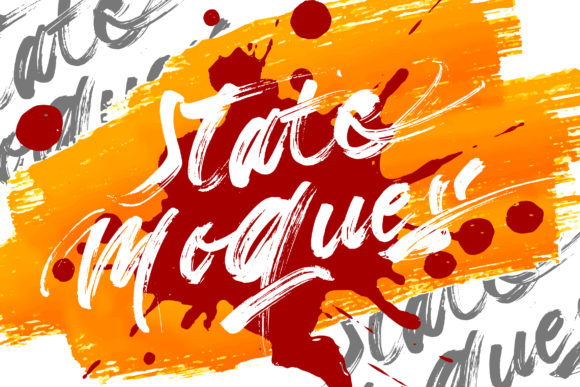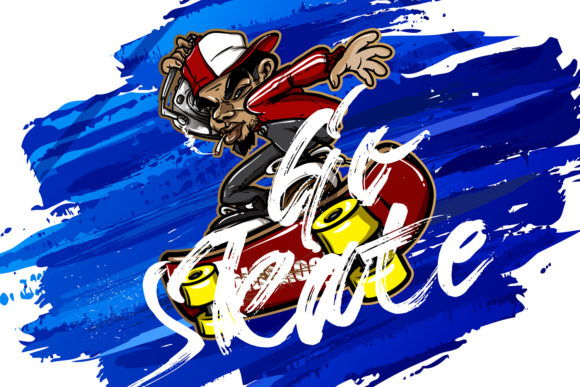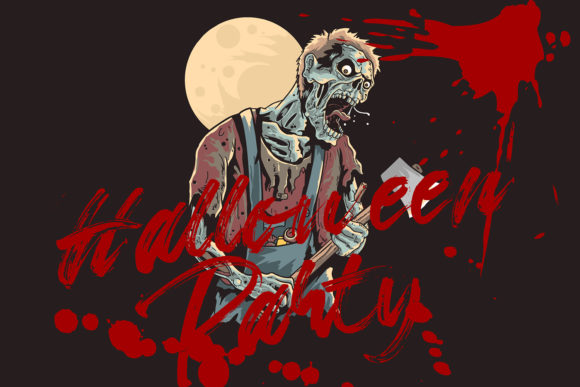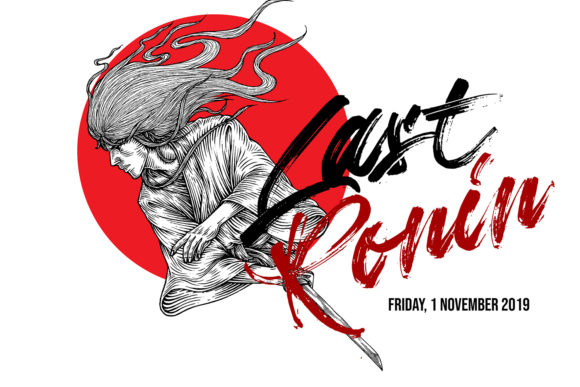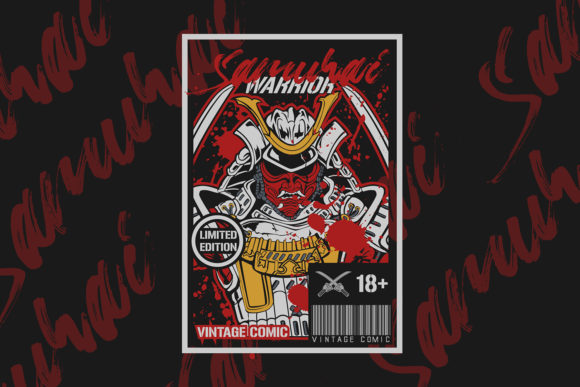
State Moques Font
About State Moques Font
Raw lettering meets powerful brushes: State Moques is a one-of-a-kind brush font with a vibrant feel. It will turn any design idea into a piece of work.